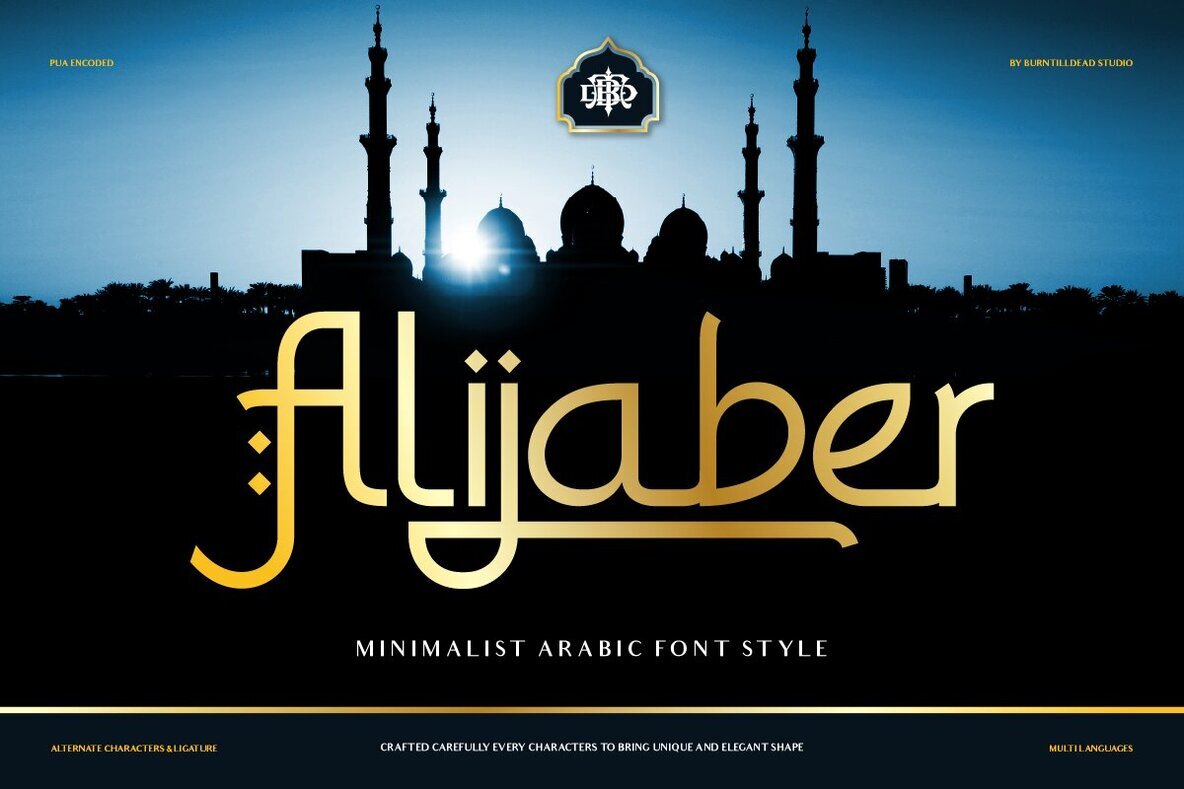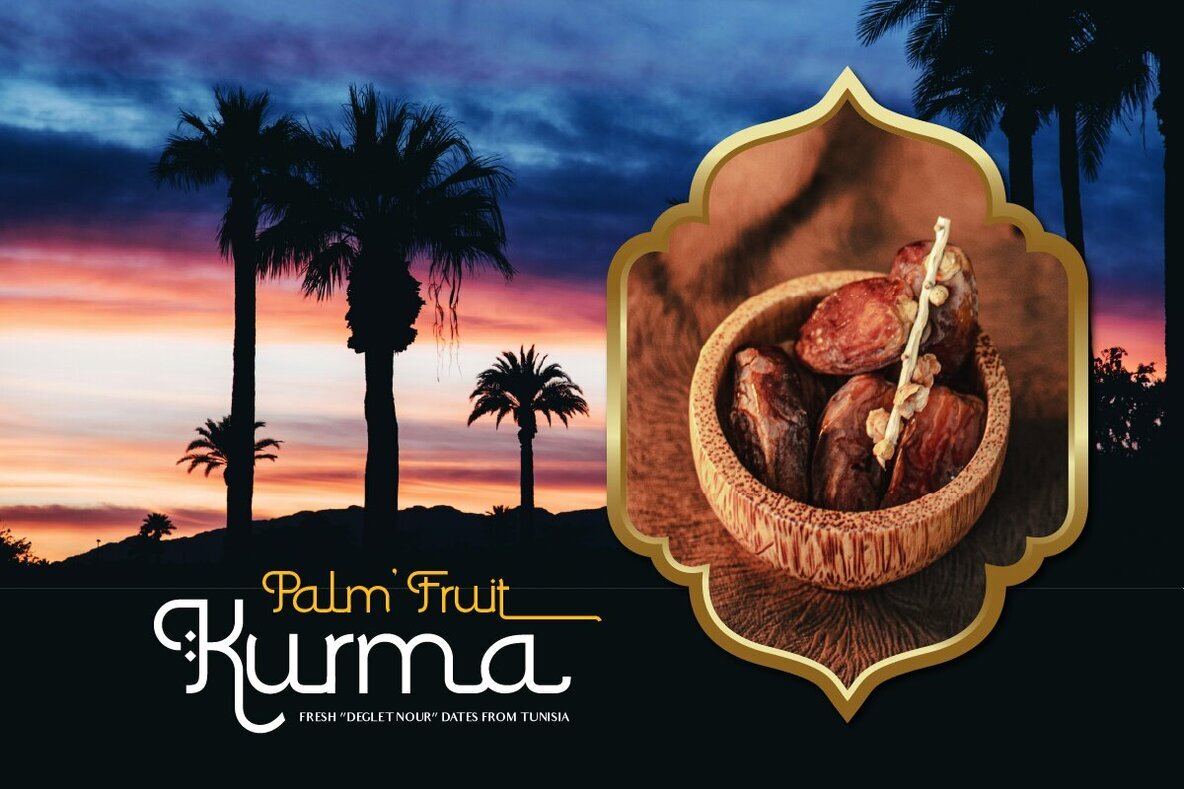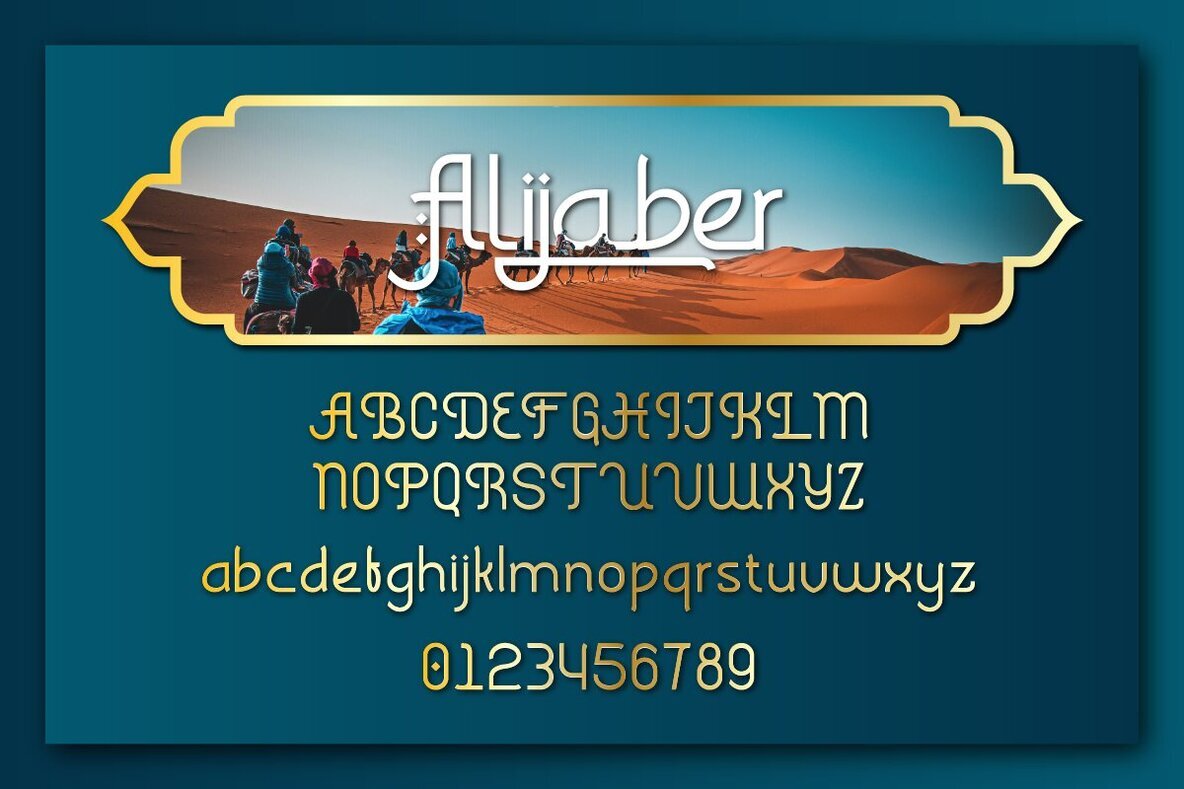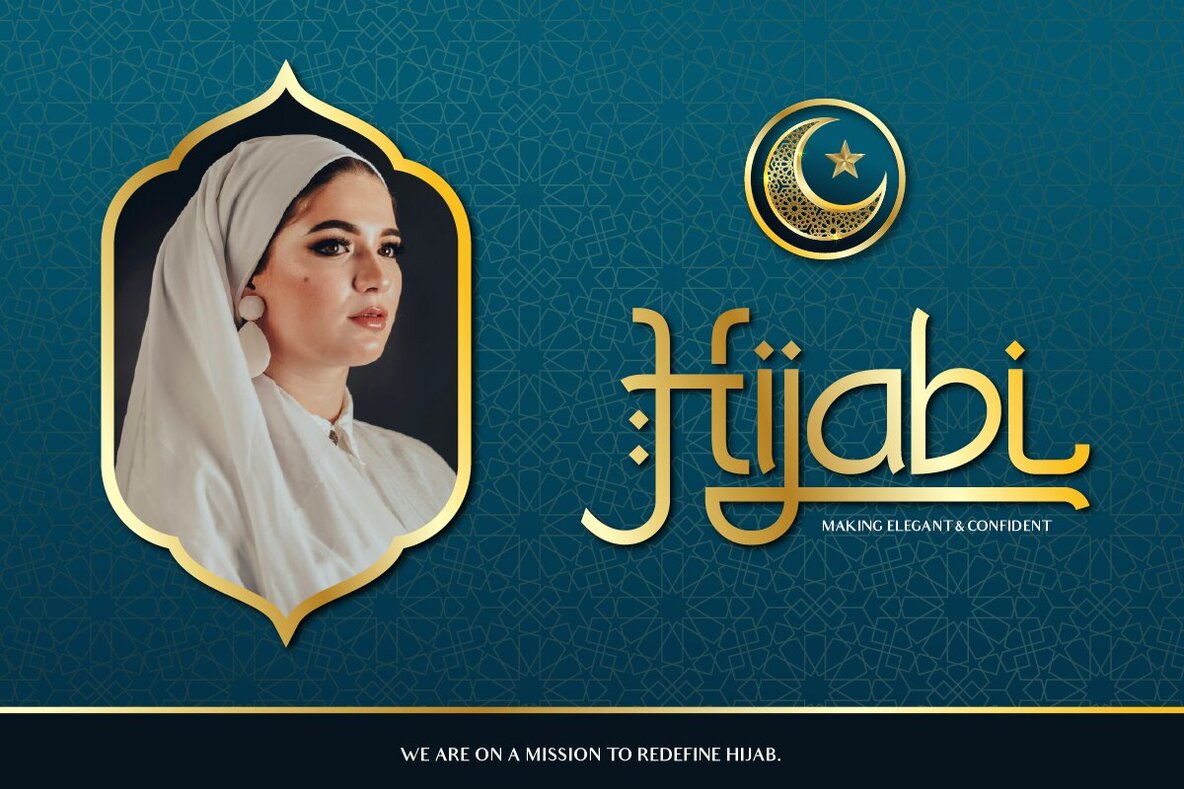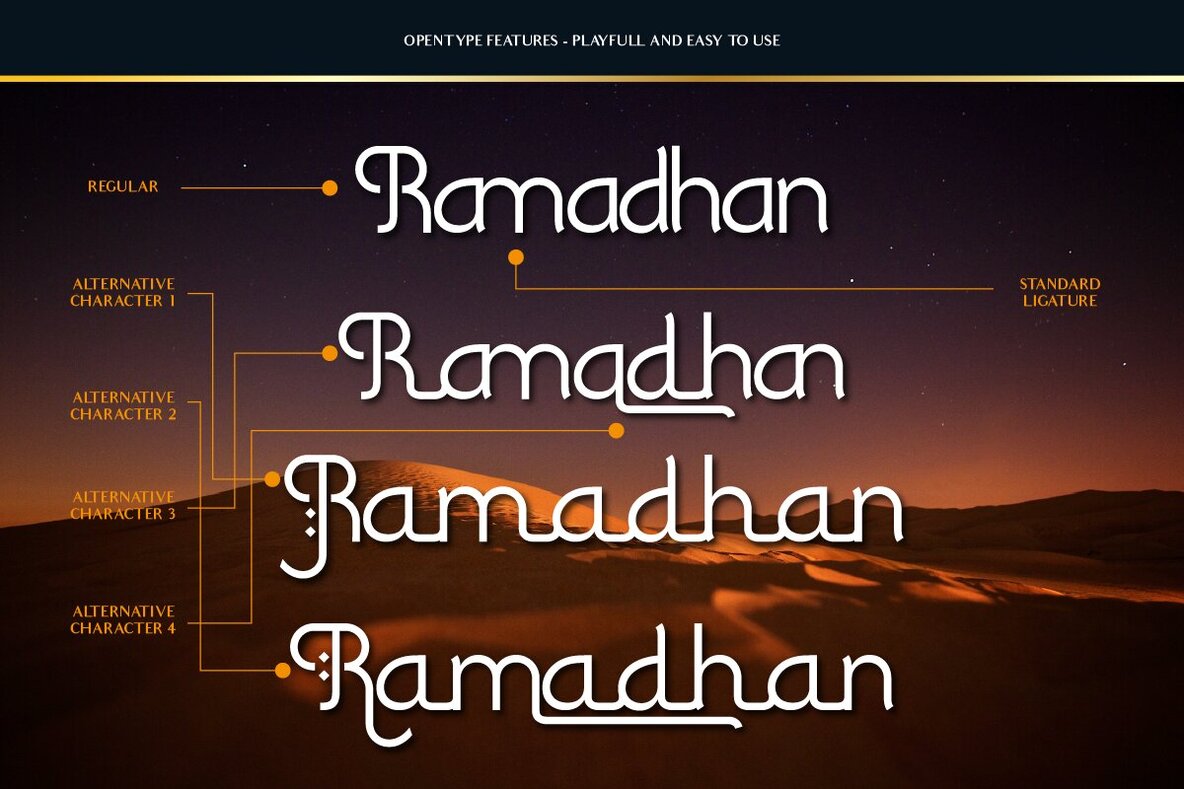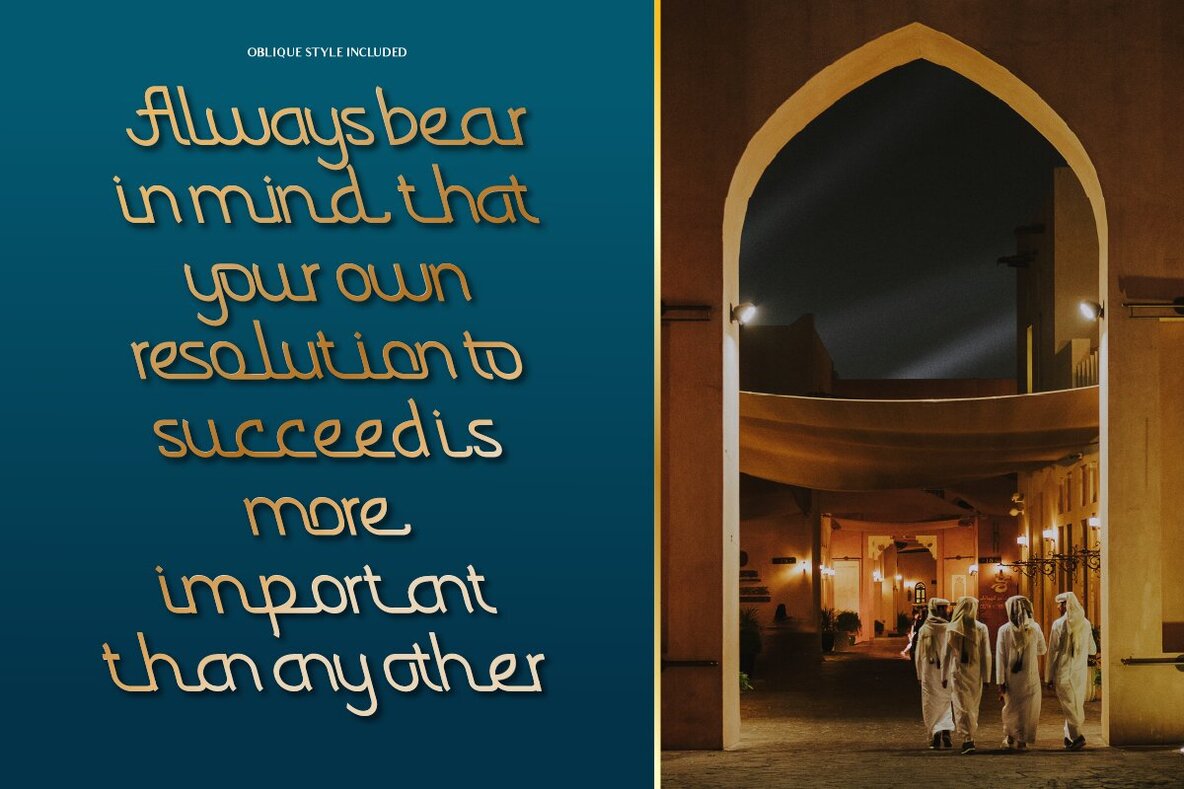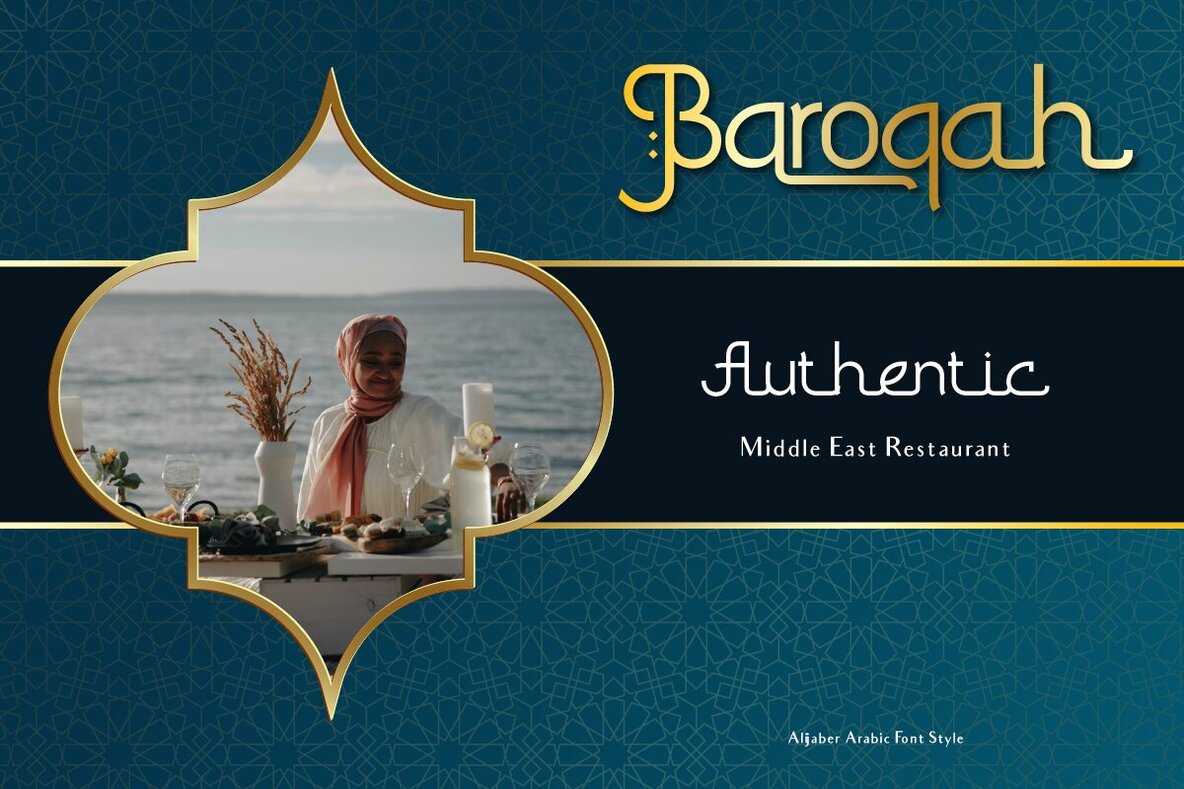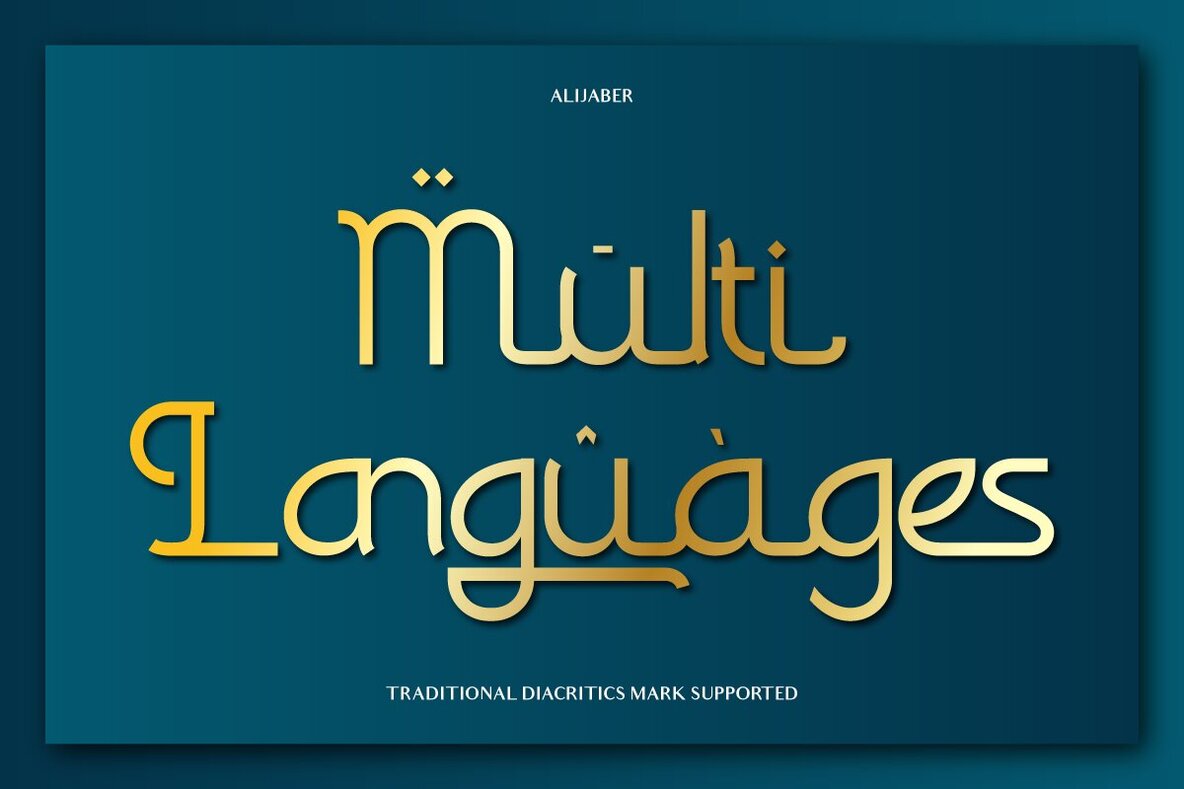
Alijaber Font
Alijaber Regular
Alijaber Oblique
Alijaber is a minimalist Arabic-inspired font that uses Latin characters, making it ideal for projects requiring an Arabic, Islamic, or Middle Eastern aesthetic. Its versatility is further enhanced by multilingual features, allowing it to be incorporated into global designs. As a sans serif font, Alijaber offers clarity, modernity, and timelessness. Available in two styles—regular and oblique—it provides design flexibility to suit various applications.
The distinctive ligatures and alternates in Alijaber infuse your work with a unique Middle Eastern essence. This font is perfect for logotypes, invitations, branding materials, headers, letterheads, apparel design, and publications such as magazines and books. Key features include uppercase and lowercase letter sets, numbers, punctuation, alternates, ligatures, and multilingual support, all detailed in the Alijaber Characters Map.